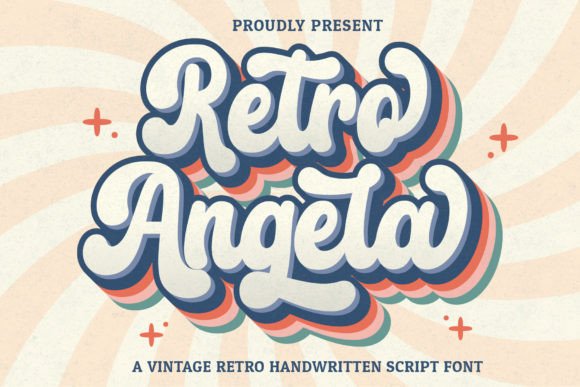
Introducing Retro Angela Font: The Ultimate Vintage-Style Handwritten Font
Are you looking for a font that can add a special retro touch to your design projects? Look no further than Retro Angela Font! This cool, vintage-style handwritten font is perfect for a wide range of design ideas, from logos and branding to invitations, stationery, wedding designs, social media posts, and more.
What is Retro Angela Font?
Retro Angela Font is a unique and stylish handwritten font that is inspired by the classic scripts of the past. Its vintage-style design makes it perfect for adding a touch of nostalgia and elegance to any design project. The font is highly versatile and can be used for a wide range of applications, from formal events to casual social media posts.
Key Features of Retro Angela Font
- Vintage-style design: Retro Angela Font features a classic, handwritten design that is reminiscent of the past.
- Highly versatile: The font can be used for a wide range of design projects, from logos and branding to invitations, stationery, and social media posts.
- Easily customizable: The font is highly customizable, allowing you to adjust the size, color, and style to suit your design needs.
Uses for Retro Angela Font
Retro Angela Font is a highly versatile font that can be used for a wide range of design projects. Here are some ideas to get you started:
- Logos and branding: Use Retro Angela Font to create a unique and stylish logo for your business or brand.
- Invitations and stationery: The font is perfect for creating formal and informal invitations, as well as stationery such as letterheads and greeting cards.
- Wedding designs: Retro Angela Font is a popular choice for wedding designs, including wedding invitations, programs, and decorations.
- Social media posts: Use the font to add a touch of elegance and sophistication to your social media posts.
Benefits of Using Retro Angela Font
There are many benefits to using Retro Angela Font in your design projects. Here are a few:
- Unique and stylish design: The font features a unique and stylish design that will set your design projects apart from the rest.
- Highly versatile: The font can be used for a wide range of design projects, making it a great addition to any design library.
- Easily customizable: The font is highly customizable, allowing you to adjust the size, color, and style to suit your design needs.
Tips and Tricks for Using Retro Angela Font
Here are some tips and tricks for using Retro Angela Font:
- Use it sparingly: Use Retro Angela Font sparingly to add a touch of elegance and sophistication to your design projects.
- Experiment with different colors: Experiment with different colors and textures to add depth and interest to your design projects.
- Pair it with other fonts: Pair Retro Angela Font with other fonts to create a unique and stylish design.
- Use it for headlines and titles: Use Retro Angela Font for headlines and titles to add a touch of elegance and sophistication.
Retro Angela Font is a unique and stylish handwritten font that is perfect for adding a touch of nostalgia and elegance to any design project. Its vintage-style design, PUA encoding, and high versatility make it a great addition to any design library. With its wide range of uses and benefits, Retro Angela Font is a must-have font for any designer or creative.
- What is Retro Angela Font?: Retro Angela Font is a cool, vintage-style handwritten font that is perfect for adding a touch of nostalgia and elegance to any design project.